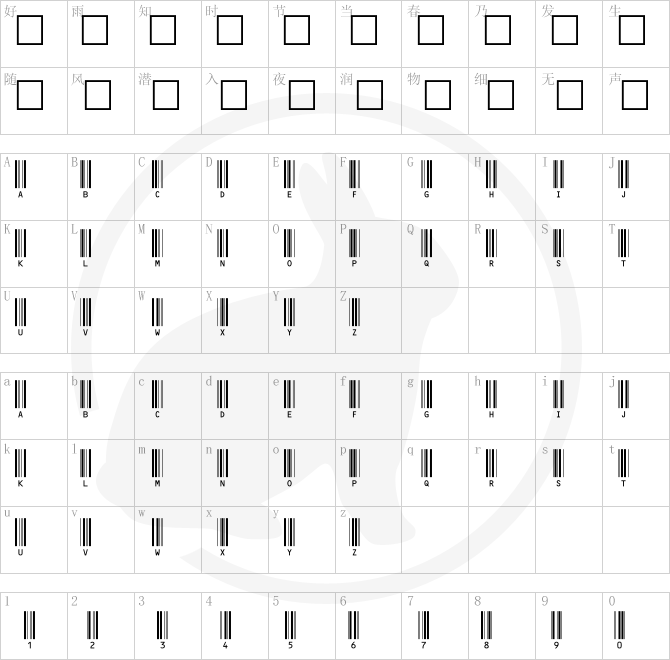
- Font Name:C39HrP36DmTt
C39HrP36DmTt.ttf is a very beautiful artistic font, C39HrP36DmTt.ttf is widely used in the design and printing of various books and pictures,C39HrP36DmTt.ttf has a strong visual impact,C39HrP36DmTt.ttf is a commonly used font in newspapers, magazines and books, and is used in posters, e-commerce Poster design, store design, logo design, font design and other fields.C39HrP36DmTt.